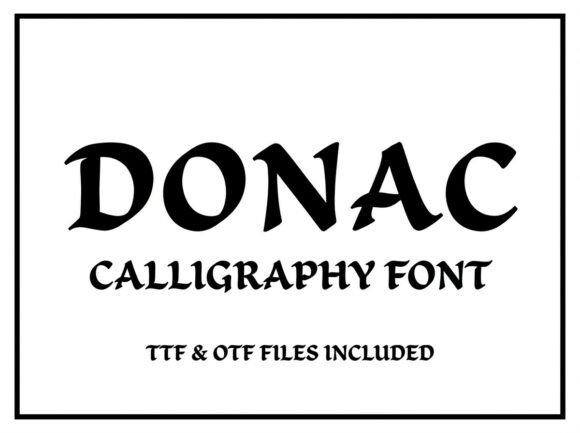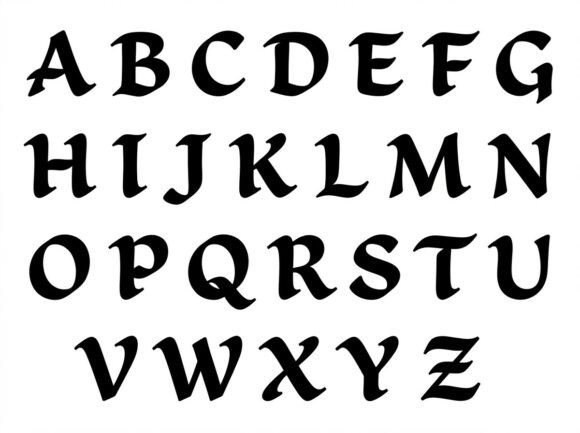
The Timeless Charm of Donac Font: Elevate Your Designs with Classic Calligraphy
I still remember the design project that made me fall in love with the Donac font. I was working on a luxury brand’s packaging, and my client requested a font that exuded sophistication and history. After hours of searching, I stumbled upon Donac, and it was like a lightbulb went off. The bold, high-contrast letterforms and sharp terminals instantly gave me the classic, artisanal feel I was looking for. In this article, I’ll share my experience with Donac, its features, and how to make the most of this stunning font in your designs.
An Honest Review of Donac Font
What I Love About Donac ✨
- ✅ Timeless elegance: Donac’s classic calligraphy style gives any design a sense of history and sophistication.
- ✅ High-contrast letterforms: The bold, chiseled strokes and sharp terminals create a beautiful visual hierarchy.
- ✅ Handcrafted feel: The font’s upright posture and rhythmic weight distribution make it feel like it was crafted with a traditional flat-nib pen.
- ✅ Versatility: Donac is perfect for a wide range of design projects, from luxury branding to medieval-themed events.
While Donac is an exceptional font, there are a few things to keep in mind:
- 🤔 Legibility at small sizes: Donac’s high-contrast letterforms can become tricky to read at very small font sizes.
- 🤔 Limited use in body text: Due to its bold and ornate nature, Donac is best suited for headlines, titles, and short paragraphs.
- Experiment with OpenType features, such as stylistic alternates, to add variety to your text.
The Story Behind Donac Font
Donac was inspired by the art of traditional calligraphy. Its creator sought to capture the essence of classic penmanship, with its bold, expressive strokes and elegant letterforms. The result is a font that feels both timeless and sophisticated.
| What makes Donac font unique? | Donac’s high-contrast letterforms, sharp terminals, and rhythmic weight distribution create a distinctive, handcrafted feel. |
| Is Donac suitable for body text? | While Donac is an exceptional font, it’s best suited for headlines, titles, and short paragraphs due to its bold and ornate nature. |
| Does Donac support OpenType features? | Yes, Donac supports OpenType features, including stylistic alternates, glyphs, and ligatures, which can enhance your designs. |